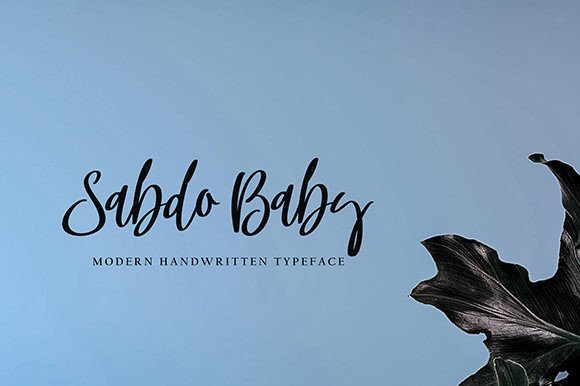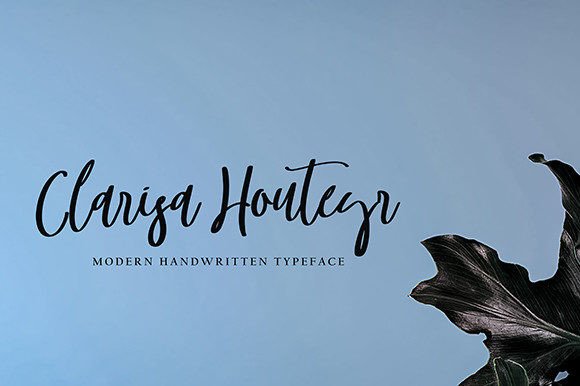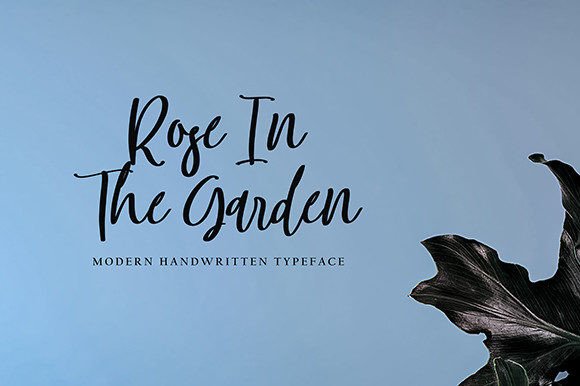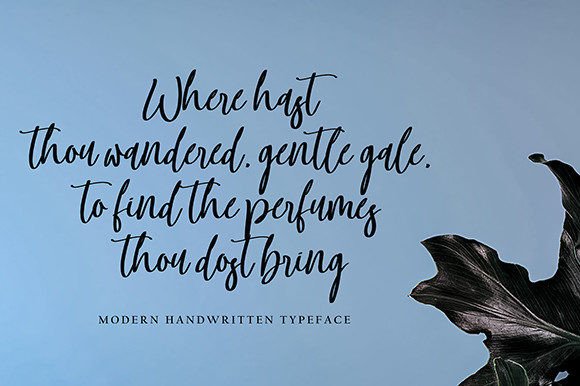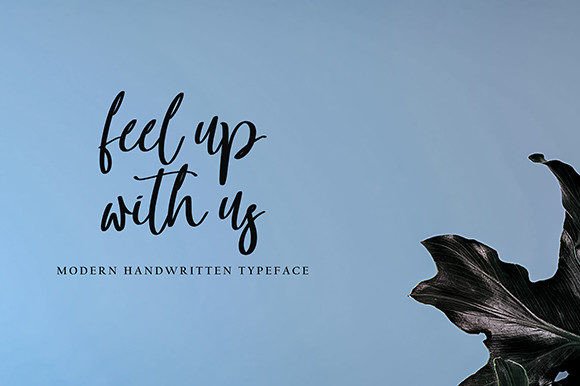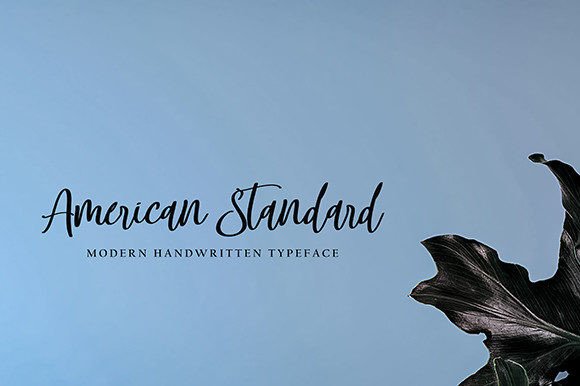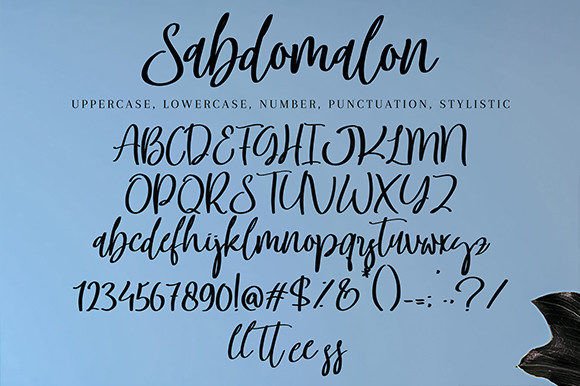
Sabdomalon Font
Add Style and Grace with Sabdomalon Font
Sabdomalon Font is a beautifully elegant handwritten typeface that brings charm and sophistication to every design. With its flowing lines and gentle curves, it delivers a handwritten feel that feels both personal and timeless. Whether you’re creating a heartfelt invitation or an elegant brand identity, this font offers the perfect balance of style and readability.
Ideal for Weddings and Personal Designs
This script font is especially popular for wedding invitations, thank-you cards, and greeting cards. The fine details in its strokes add warmth and sincerity to your message. You can also use Sabdomalon in:
• Elegant quote graphics
• Boutique logo designs
• Business cards with a personal flair
• Personalized stationery and prints
No matter the project, this font enhances its visual appeal with subtle elegance.
Smooth Flow, Easy to Read
Sabdomalon Font is crafted with clarity and balance in mind. It’s not too thin or too bold, allowing it to remain highly legible across different sizes and backgrounds. This makes it perfect for use in both formal print materials and digital designs.
Its graceful letterforms flow naturally, giving your content a polished and cohesive look. The font includes beautiful ligatures and alternate characters that enhance the handwritten appearance.
Designer-Friendly and Fully Accessible
You don’t need advanced design skills to work with Sabdomalon—it’s built to be easy and fun to use.
Sabdomalon Font adds a heartfelt and stylish look to all your creative work. Whether you’re designing wedding stationery, crafting social media graphics, or developing personal branding, this font delivers both beauty and function.